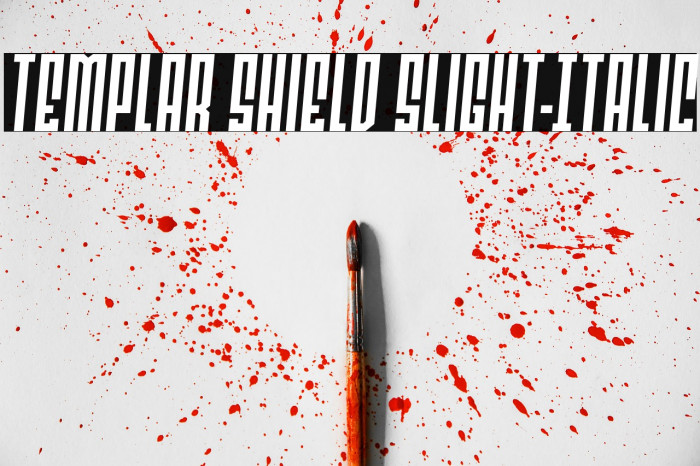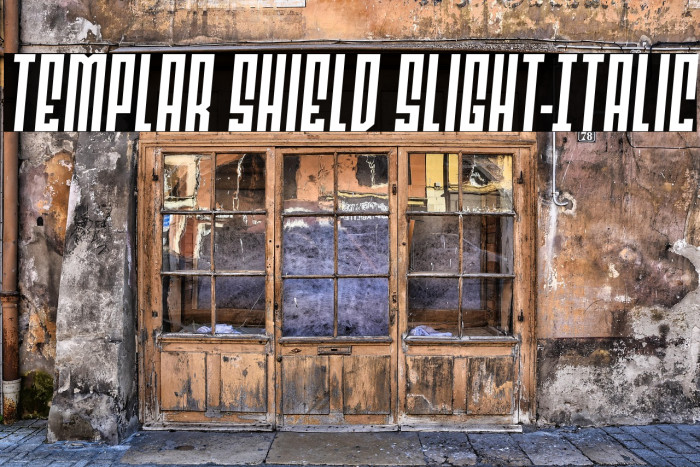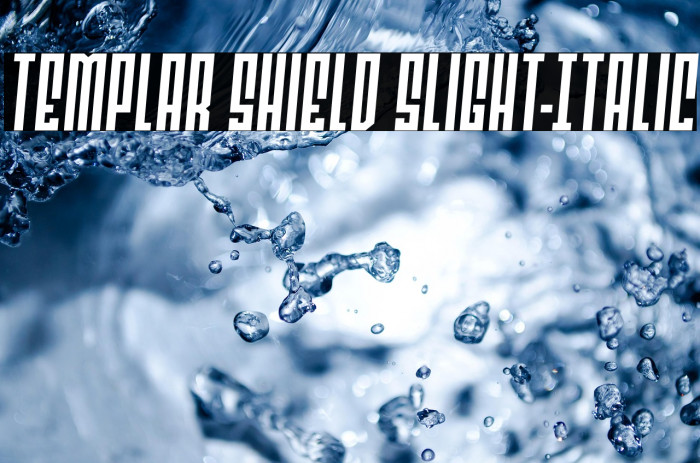
Templar Shield Slight-Italic Font
Templar Shield Slight-Italic Description
This font features a bold and angular design with a slight italic slant, giving it a dynamic and modern appearance. The characters are tall and narrow, with sharp edges and a consistent stroke width that conveys strength and precision. The uppercase and lowercase letters maintain a uniform style, while the numbers and special characters complement the overall aesthetic. The font's geometric structure and clean lines make it suitable for impactful and attention-grabbing designs.
Proposed ProjectsIdeal for branding, sports team logos, posters, and any design requiring a strong, modern look.